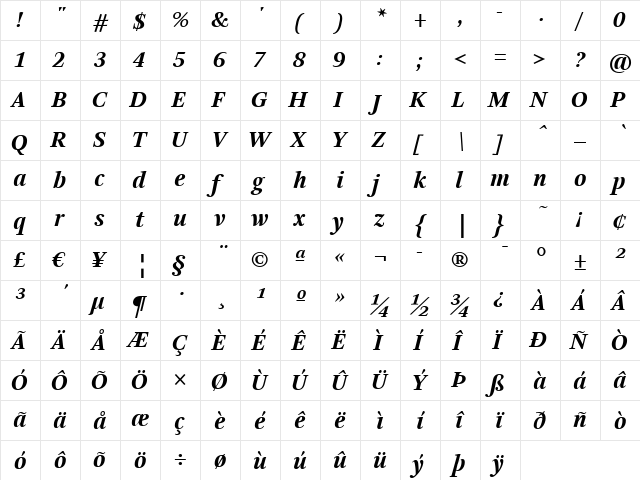
Design Context for ArnhemLF-BoldItalic Typeface
ArnhemLF-BoldItalic offers clean, dependable letterforms without strong stylistic allegiance, making it a practical choice for designers who need flexibility. Its italic angle brings a sense of urgency and motion to the letterforms. Its bold stroke weight gives it real presence on the page.
Pro Tip: Try ArnhemLF-BoldItalic for annotation and caption copy alongside an upright companion — the contrast in angle creates a dynamic but ordered typographic system.